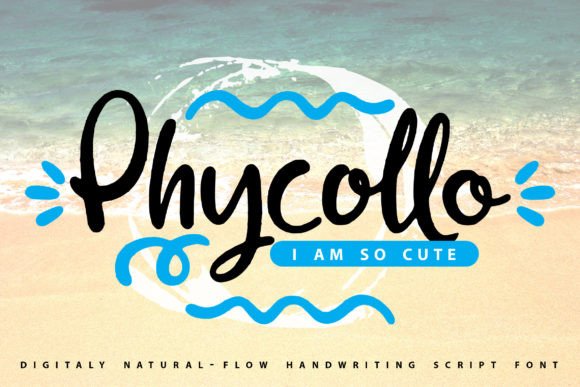
Dive into the world of contemporary elegance with Phycollo Font, a captivating script typeface that exudes a symphony of charm and sophistication. This meticulously crafted font, born from the creative vision of Vunira, is an ode to the art of handwritten calligraphy, capturing the essence of authentic beauty.
With its graceful curves and sweeping strokes, Phycollo Font dances across the page like a ballerina, its every letter a work of art. Each glyph is a testament to the artistry of its creator, showcasing intricate details and delicate flourishes that evoke a sense of timeless allure.
As a script font, Phycollo Font possesses an inherent versatility that makes it a perfect choice for a wide range of creative projects. Whether you're designing elegant invitations, crafting heartfelt greeting cards, or creating eye-catching branding materials, this font has the power to elevate your designs to new heights of sophistication.
Imagine your business cards adorned with the Phycollo Font, their clean lines and elegant curves commanding attention and leaving a lasting impression. Or envision your social media posts adorned with Phycollo's charm, their messages amplified by the font's inherent beauty and grace.
The possibilities are endless with Phycollo Font, a true masterpiece that will transform your creative endeavors into works of art. Its PUA encoding ensures effortless access to a treasure trove of glyphs and swashes, empowering you to unleash your creativity and add a touch of magic to every project.
So step into the realm of modern elegance and embrace the beauty of Phycollo Font. Let its enchanting strokes ignite your imagination and create designs that captivate and inspire. From personal projects to professional endeavors, Phycollo Font is your key to unlocking a world of creative possibilities.